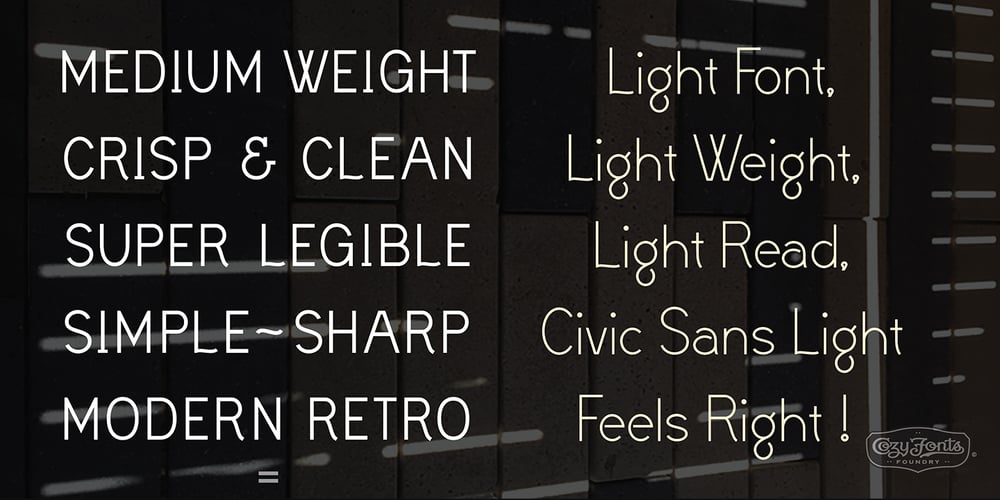
Civic Sans Font Family was designed by Tom Nikosey and published by CozyFonts. Civic Sans contains 13 styles and family package options. A Clean Sans Serif font family with a few stylish glyphs to give extra character e.g., L-R-Q-Z-W-g-t. Usage: Any applications is appropriate especially signs, directions, posters, graphics and use especially in Ads and billboards. There’s 13 font variations in Civic Sans Font Family.